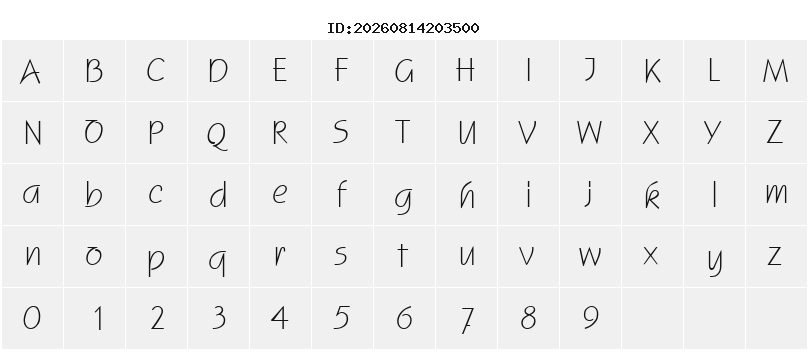
• Font Name: Status DB
About Status DB.ttf
Status DB.ttf is a modern, elegant sans-serif font designed for ultimate readability and visual harmony. Perfect for branding, headlines, web design, and print materials.